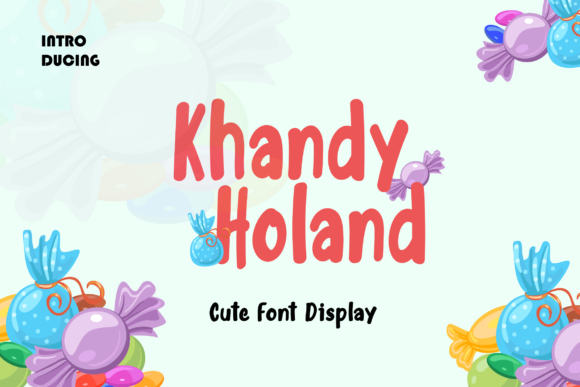
Prepare yourself to embark on a typographic adventure with Khandy Holand, the captivating display font that will ignite your creativity and leave you in awe. This playful and approachable font is your perfect companion for crafting a myriad of captivating designs, from whimsical greeting cards to eye-catching branding that will make your mark in the digital world.
Khandy Holand's charming personality shines through in every letterform, adding a touch of warmth and delight to your creations. Its carefully crafted curves and playful details evoke a sense of nostalgia, reminding you of the joy of handwritten notes and heartfelt messages.
This versatile font effortlessly adapts to your every whim, lending its unique charm to a vast array of projects. Whether you're designing invitations for a special celebration or creating custom packaging for your handmade products, Khandy Holand will elevate your designs with its undeniable charisma.
Step into a world of endless possibilities with Khandy Holand, where your imagination takes center stage. Transform ordinary designs into extraordinary expressions of your creativity. Let this lovable font guide you on a journey of self-discovery and artistic fulfillment.
Unleash the power of Khandy Holand today and witness the remarkable transformation it brings to your designs. Prepare to be captivated by its infectious charm and undeniable versatility.